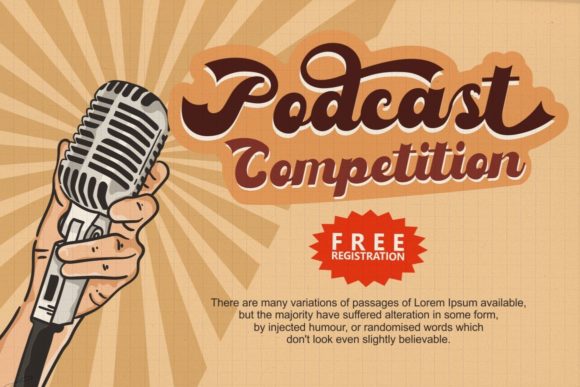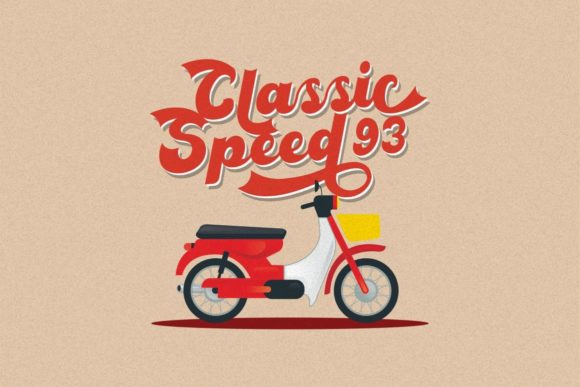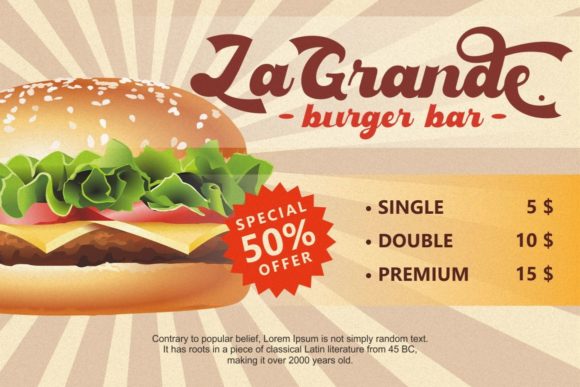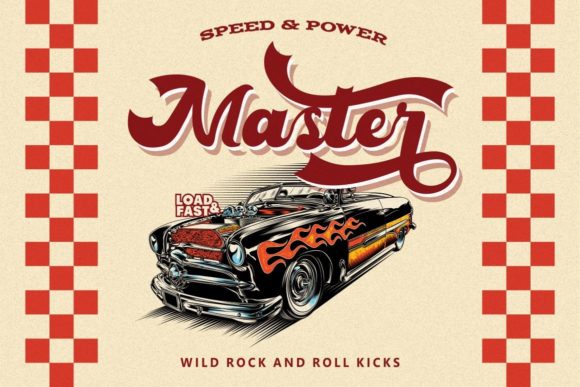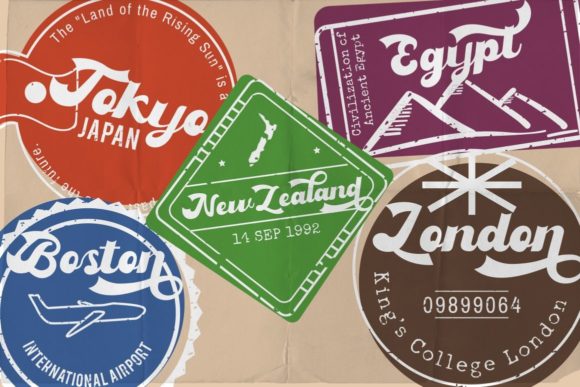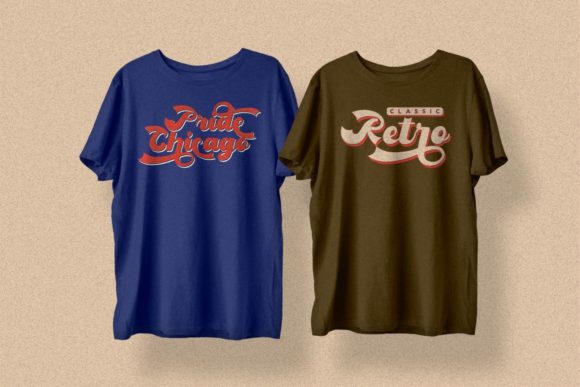
Introducing Grandtown Font: Elevate Your Designs with Style and Confidence
Are you looking for a font that can add a touch of nostalgia and sophistication to your designs? Look no further than Grandtown Font, a stunning display font that is sure to take your headlines and logotype projects to the next level. In this article, we’ll dive into the features and benefits of Grandtown Font, and explore how it can help you create visually stunning designs that capture attention and leave a lasting impression.
A Bold and Dynamic Font for Ambitious Designers
Grandtown Font is a gorgeous and bold display font, crafted to give your designs a stylish touch. With its strong, confident, and dynamic appearance, this font is perfect for designers who want to make a statement. Whether you’re working on a logo, headline, or any other design project, Grandtown Font is sure to add a level of sophistication and elegance that sets your work apart from the rest.
PUA Encoded for Easy Access to Glyphs and Swashes
One of the standout features of Grandtown Font is its PUA (Private Use Area) encoding. This means that you can access all of the glyphs and swashes with ease, giving you complete creative control over your designs. With PUA encoding, you can easily insert special characters, ligatures, and other unique features that will take your designs to the next level.
Add a Touch of Nostalgia to Your Designs
Grandtown Font has a unique ability to add a touch of nostalgia to your designs. Its classic, bold appearance is reminiscent of vintage signs and logos, making it perfect for designers who want to create a retro or distressed look. Whether you’re working on a branding project, packaging design, or any other type of design, Grandtown Font is sure to add a level of character and personality that resonates with your audience.
Grandtown Font is a versatile font that can be used for a wide range of design projects. Here are just a few examples of how you can use this amazing font:
• Logos and branding: Use Grandtown Font to create a bold and memorable logo that sets your brand apart from the competition.
• Headlines and titles: Add a touch of style and sophistication to your headlines and titles with Grandtown Font.
• Packaging design: Use Grandtown Font to create eye-catching packaging designs that stand out on store shelves.
• Advertising and marketing: Grandtown Font is perfect for creating bold and attention-grabbing ads that drive results.
Why Choose Grandtown Font?
With so many fonts on the market, why choose Grandtown Font? Here are just a few reasons why this font stands out:
• Unique and stylish: Grandtown Font has a unique and stylish appearance that sets it apart from other fonts.
• High-quality design: This font is crafted with attention to detail and a focus on quality, ensuring that it looks great in any design.
• Easy to use: Grandtown Font is PUA encoded, making it easy to access all of the glyphs and swashes.
• Versatile: This font can be used for a wide range of design projects, from logos and branding to headlines and packaging design.